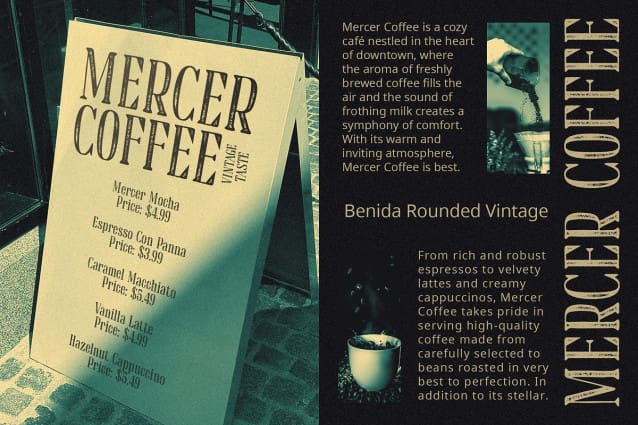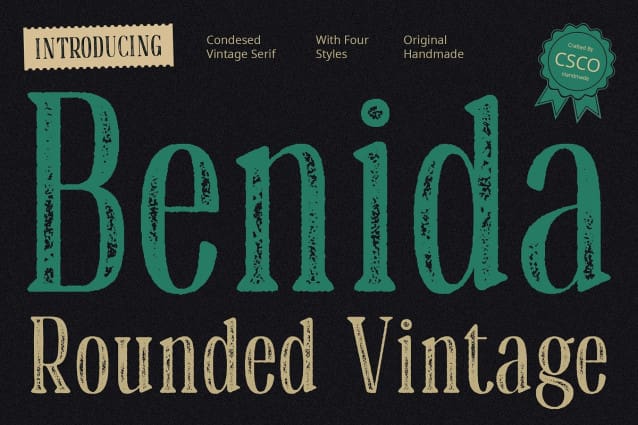
Benida Rounded Vintage Font
Benida Rounded Vintage Font: A Vintage Display Typeface. Retro Charm with a Modern Twist Benida Rounded Vintage presents a unique blend of vintage charm and contemporary design. Its condensed serif structure with rounded serifs exudes retro vibes with a modern touch.
Distinctive Condensed Serif Design The font features a condensed serif design that lends it a distinctive and elegant appearance. The rounded serifs add a soft, approachable feel to each character, enhancing readability and appeal.
Rough Stamp Drawn Effect With its rough stamp drawn effect, This font achieves an authentic vintage look. The rugged texture and imperfect lines evoke nostalgia, adding character and personality to the typeface.
Versatile Vintage Display Font This font is versatile and well-suited for various display purposes. From branding and packaging to posters and headlines, its vintage aesthetic makes a bold statement while maintaining readability.
Vintage Elegance with a Modern Twist This font is the epitome of vintage elegance with a modern twist. Its condensed serif design, rounded serifs, and rough stamp drawn effect combine to create a versatile display font suitable for a wide range of design projects. Step back in time with This font and add a touch of nostalgic charm to your designs.